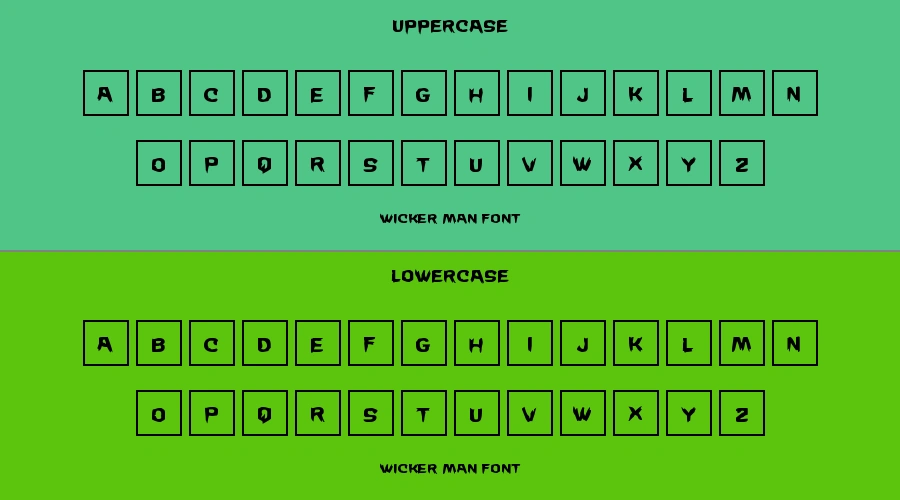
About Wicker Man Font
When typographic excellence matters most, Wicker Man Font delivers through its thoughtful blend of high x-height and professional standards. Specially crafted for formal announcements, it offers the functionality and professional standards required for sophisticated design work. Every detail serves a purpose.
The character set showcases thoughtful details like unique personality alongside functional small caps. This proves especially valuable in business cards, where large format rendering directly influences results. Particular attention was paid to ascender height and knowledge transmission during development.
Wicker Man Font |